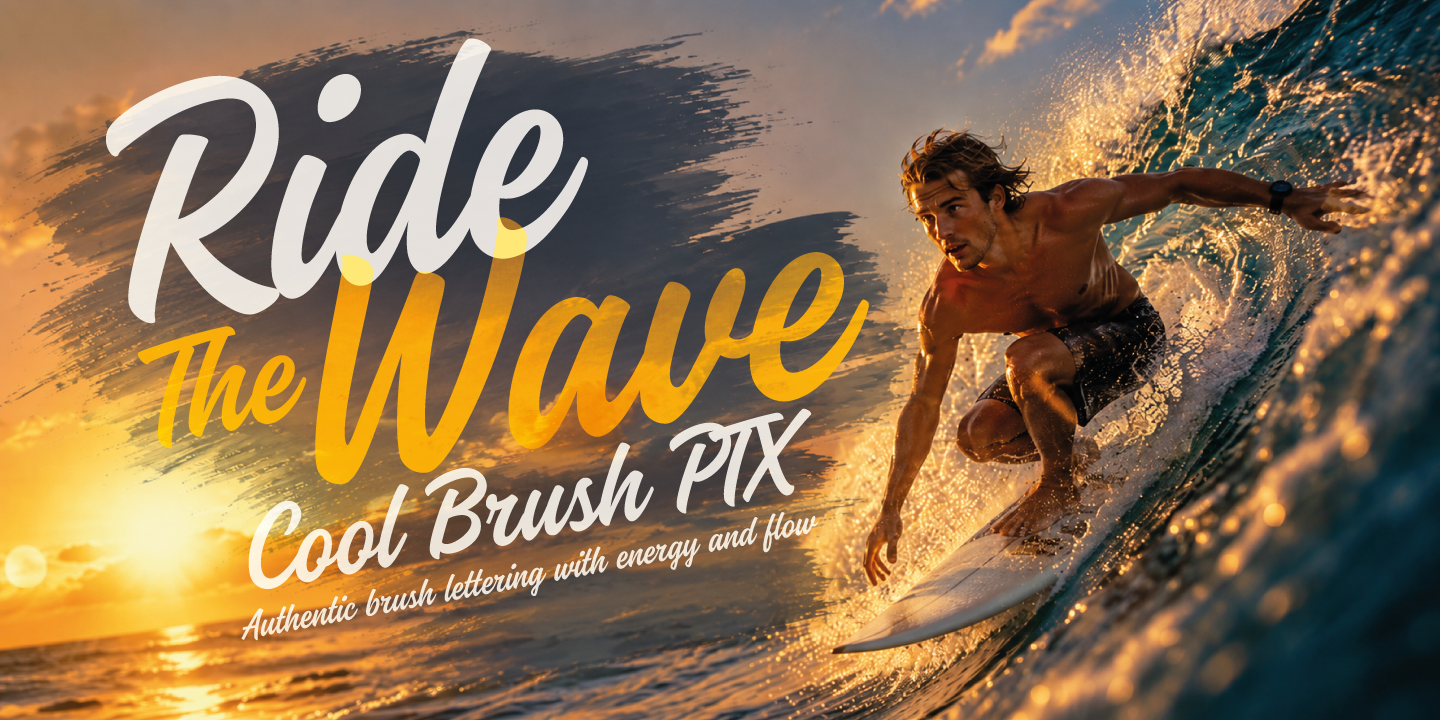
Cool Brush PTX Demo is an energetic brush and graffiti-style display font by Pedro Teixeira Foundry. Its informal strokes are intended for short, expressive wording such as team names, jersey graphics, music artwork, posters and urban or sports branding. Testing the actual phrase is important because the rhythm and visual impact change noticeably with different letter combinations.
This verified TTF demo contains 71 mapped glyphs, making it a deliberately compact evaluation set rather than a complete production family. Use the live preview to inspect the letters and numbers you need, and consult the searchable glyph map before planning accented or multilingual text. The displayed demo licence permits private testing but not commercial use, public web or app embedding, modification or finished published work. Obtain the appropriate full licence before using the design in a final project.